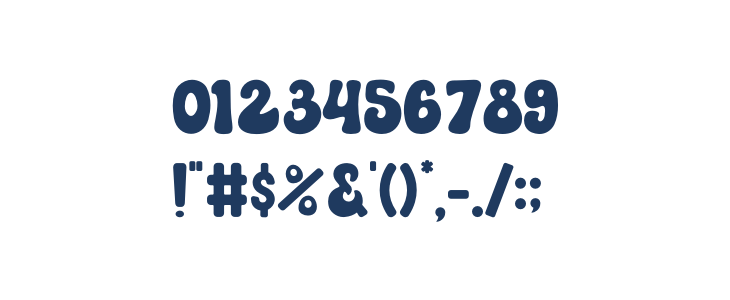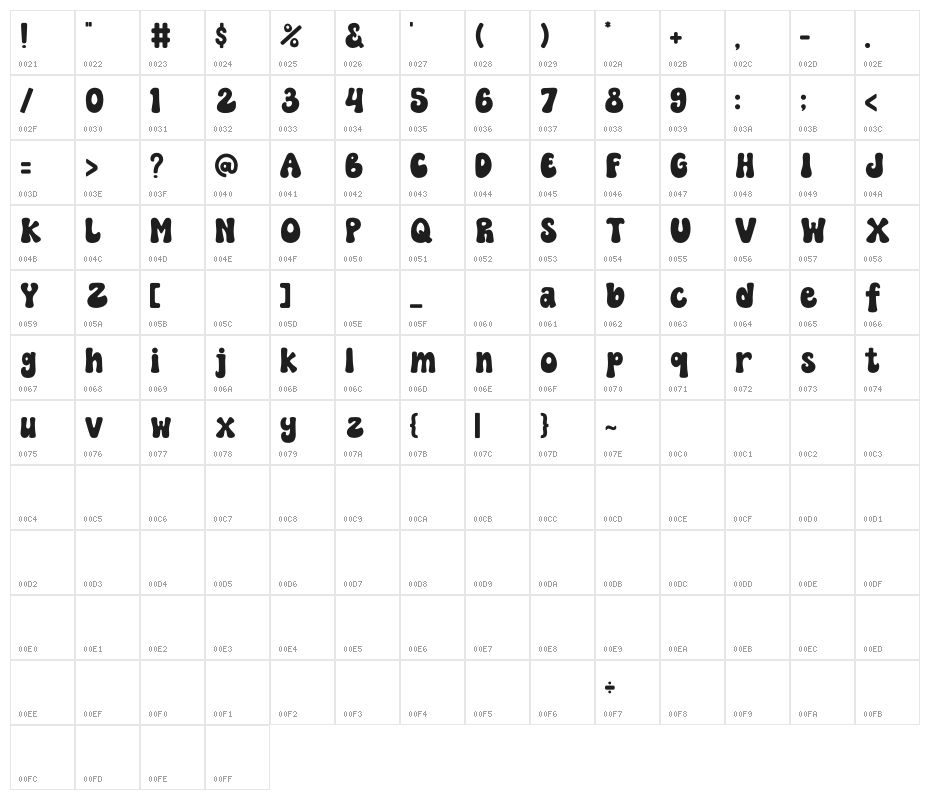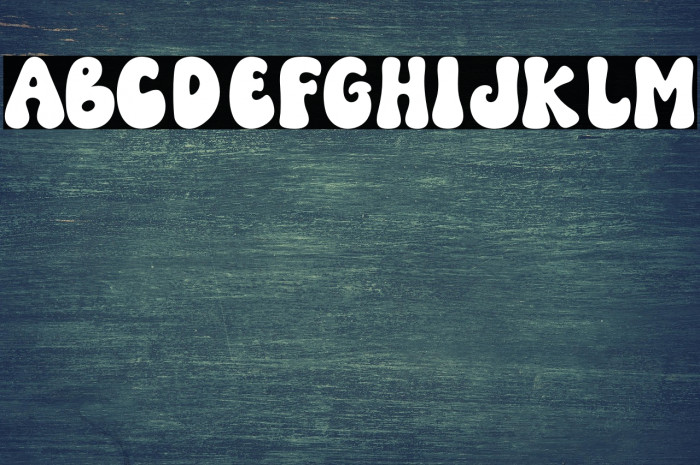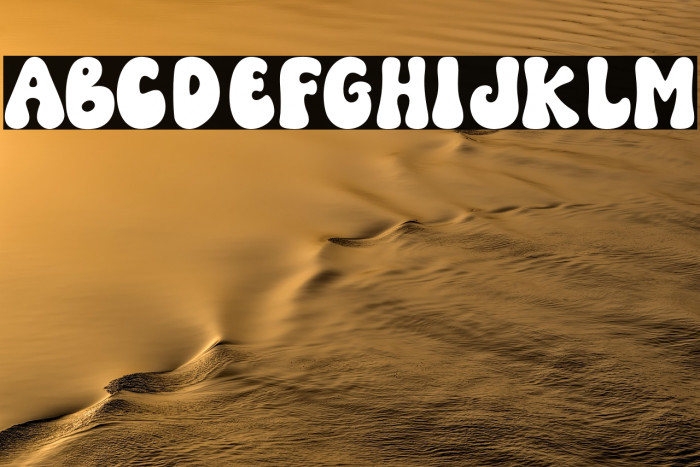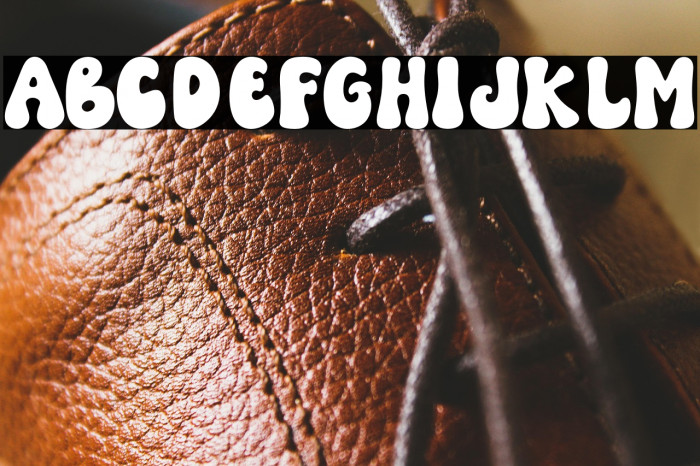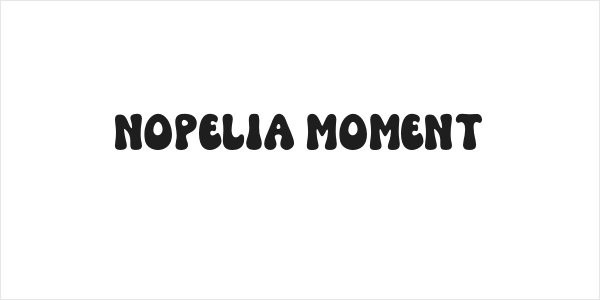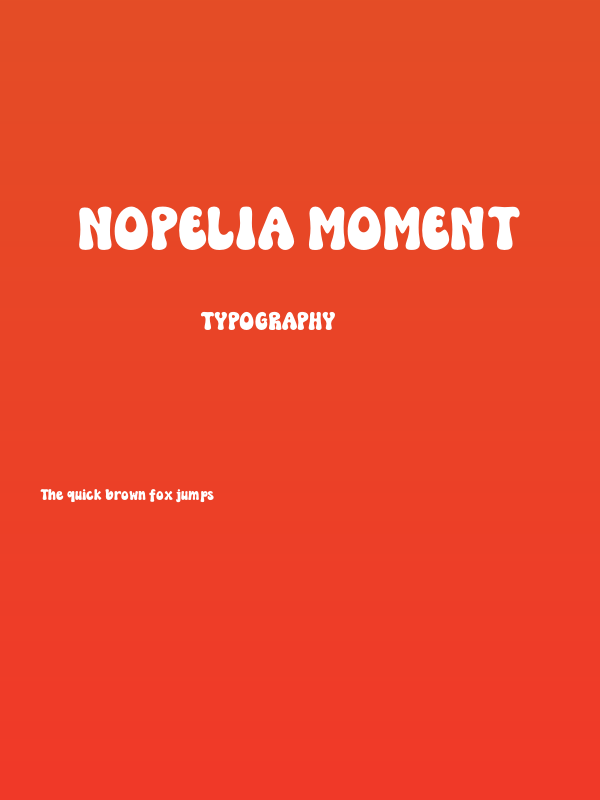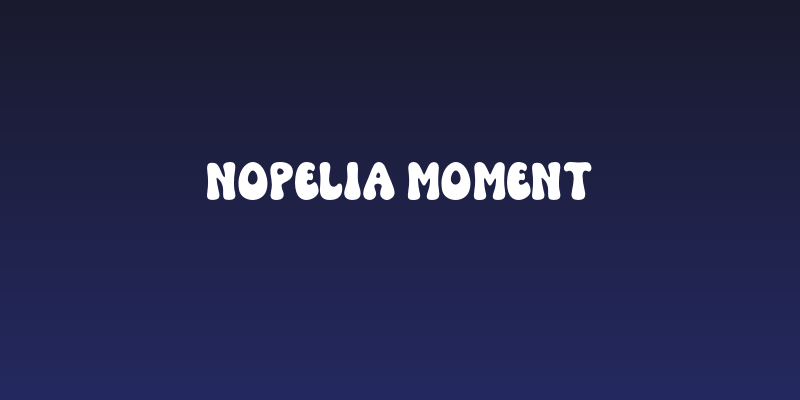
NOPELIA MOMENT Font
NOPELIA MOMENT Description
This playful and bold font features rounded, bubbly characters that exude a sense of fun and whimsy. The letters are thick and have a slightly irregular shape, giving them a hand-drawn appearance. The numbers and special characters maintain the same playful style, ensuring consistency throughout. The font's unique style makes it stand out, making it ideal for creative and informal projects. Its boldness ensures high visibility, while the rounded edges soften its overall look, making it approachable and friendly.